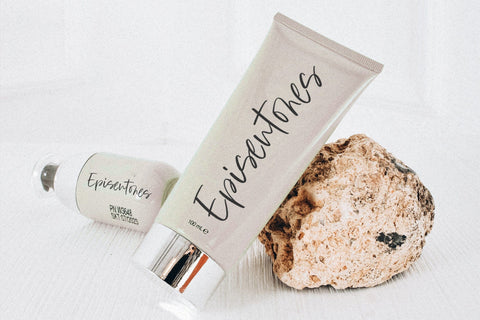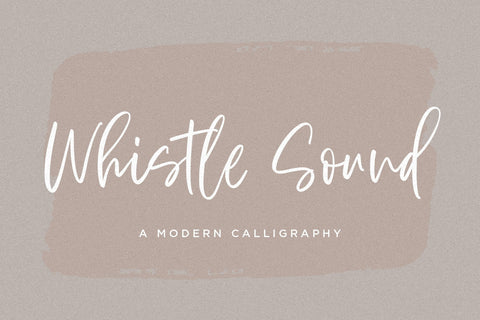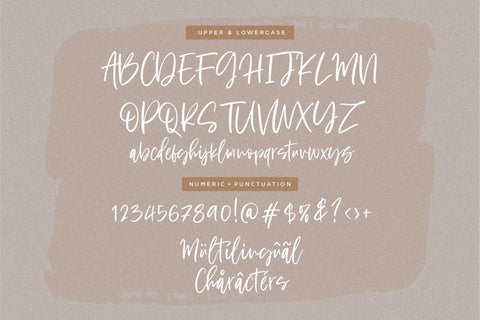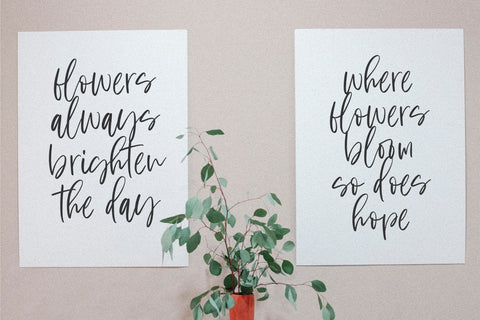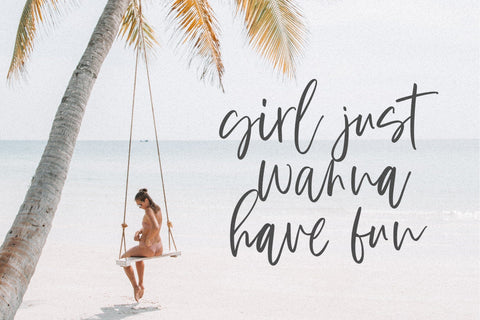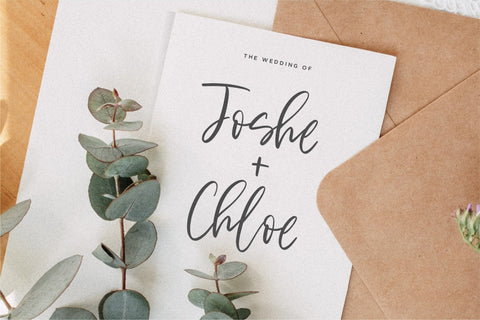
Whistle Sound Font
Whistle Sound is a Modern Calligraphy Font.
Whether you’re using it for crafts, digital design, presentations, or making greeting cards, this font has the potential to become your favorite go-to font, no matter the occasion!